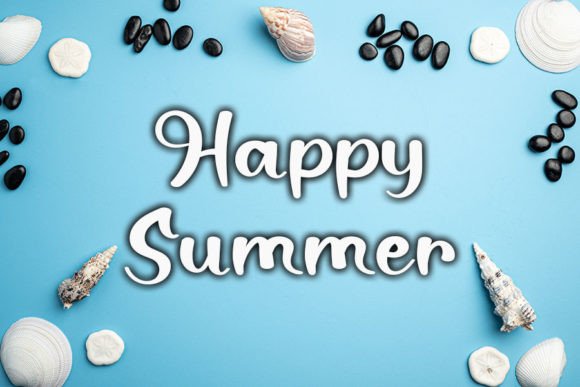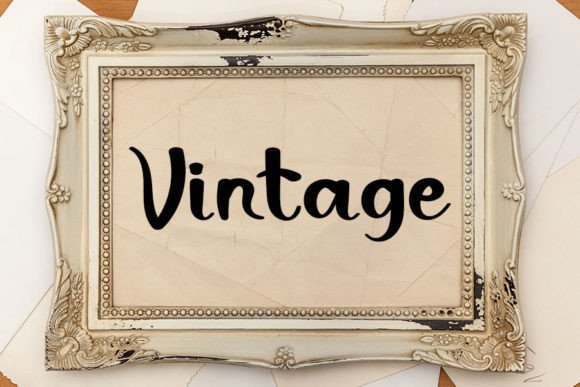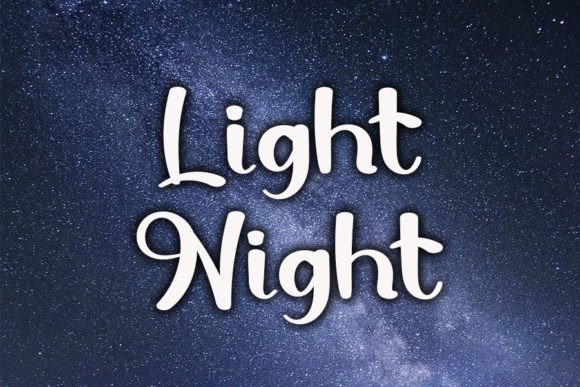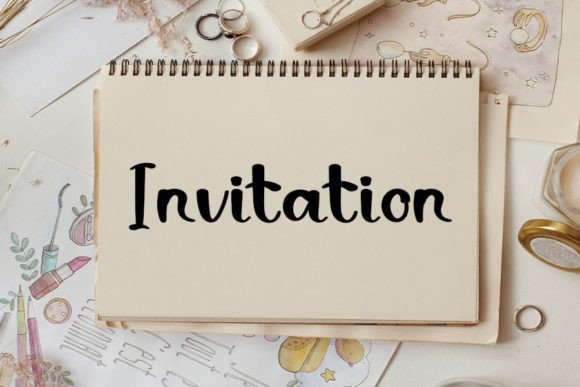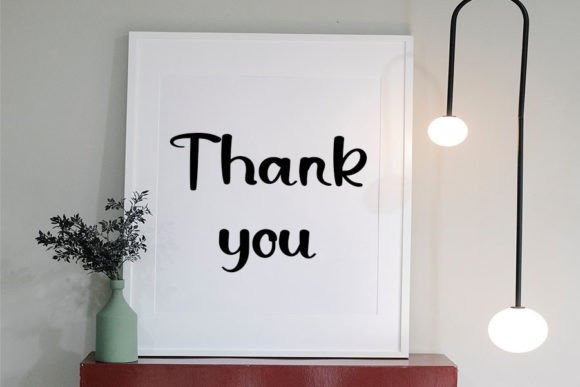
The Joy of Always Happy Font: A Designer’s New Best Friend
I still remember the design project that led me to discover the Always Happy font. I was working on a social media campaign for a lifestyle brand, and I needed a font that would convey a sense of friendliness and approachability. I had spent hours browsing through font libraries, but nothing seemed quite right. That was when I stumbled upon Always Happy, and it instantly clicked. The cute and casual handwritten style had an incredibly friendly feel that perfectly captured the brand’s tone. In this article, I’ll share my experience with Always Happy, including what I love about it, its limitations, and how to make the most of its features.
An Honest Review of Always Happy Font
What I Love About Always Happy ✨
- ✅ The font’s friendly and approachable feel makes it perfect for social media graphics, DIY projects, and calligraphy scripts.
- ✅ Its casual, handwritten style adds a personal touch to any design.
- ✅ The font is highly versatile and can be used for a wide range of creative projects.
- ✅ The OpenType features, glyphs, and stylistic alternates offer a lot of creative possibilities.
While Always Happy is an excellent font, it’s not without its limitations. Here are a few things to keep in mind:
- ⚠️ The font may not be suitable for very formal or professional designs, as its casual style may not convey the right tone.
- ⚠️ Some characters may not work well at very small font sizes, so it’s best to use it at larger sizes.
A Practical Guide to Using Always Happy Font
The Story Behind Always Happy Font
Always Happy was designed by a team of creatives who wanted to create a font that would bring joy and friendliness to designs. The font’s casual, handwritten style was inspired by everyday conversations and the imperfections that make handwriting so charming. The design team aimed to create a font that would be perfect for social media graphics, DIY projects, and calligraphy scripts.
Q: What is the best way to use Always Happy font?
A: Always Happy is a versatile font that can be used for a wide range of creative projects, including social media graphics, DIY projects, and calligraphy scripts.
Q: Is Always Happy a difficult font to read?
A: No, Always Happy is a clear and readable font, even at smaller font sizes.
Q: Can I use Always Happy with other fonts?
A: Yes, Always Happy can be paired with other fonts to create a unique and interesting design. Experiment with different font combinations to find the perfect look for your project.